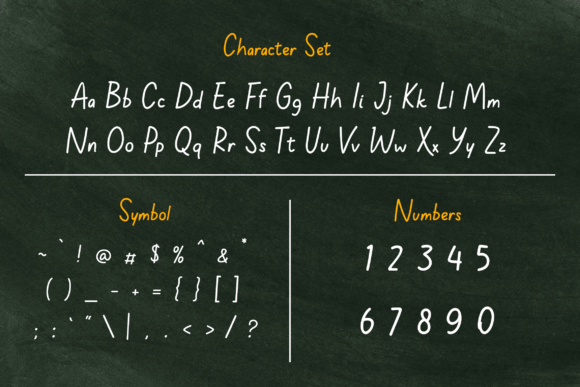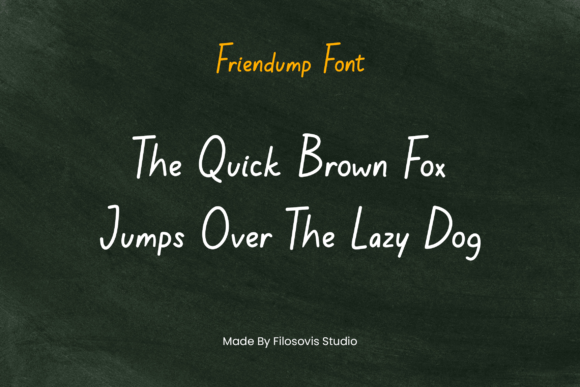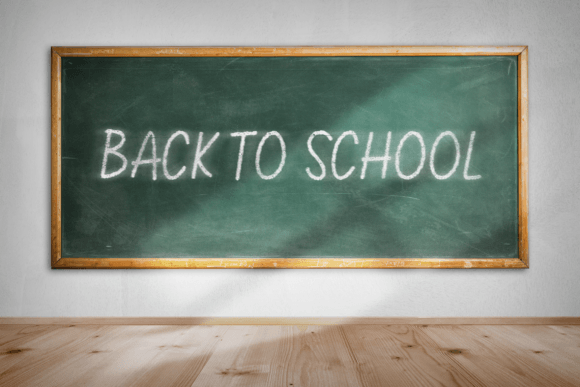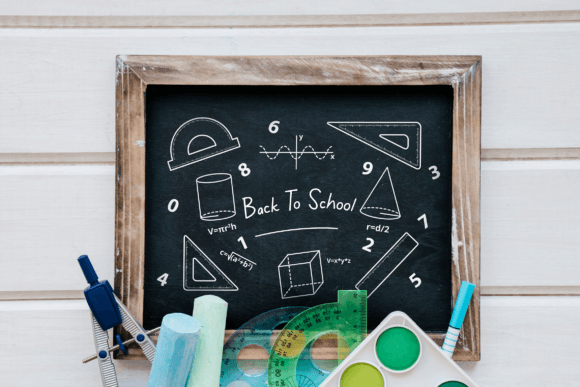
Friendump Font – Free Download
Introduction to Friendump Font
Friendump is a handwritten font that adds a playful twist to any design.
With its whimsical letterforms and unique charm, itโs perfect for eye-catching headlines, vibrant posters, and playful branding projects Infuse your creations with joy and personality with Friendump.
Key Features of Friendump Font
Why Choose Friendump Font?
Friendump Font offers exceptional quality and versatility, making it a valuable addition to your design toolkit. Whether you’re creating for personal projects or commercial use, Friendump Font delivers professional results.